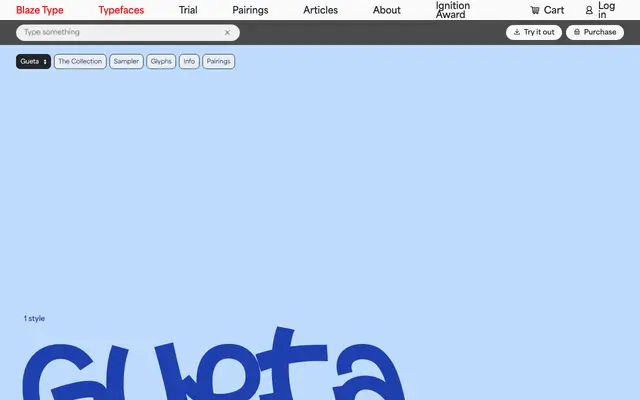
Gueta
A backslant display face by Malo Haffreingue that draws on graffiti tag culture, built around an unusually rich set of 293 ligatures connecting up to five letters at once.
Designed by Malo Haffreingue and released in 2023, Gueta takes its visual cues from the spontaneity and flow of tagged writing, rendered as a formal display typeface with a backward slant. The 293-ligature system is its defining technical feature, allowing letter sequences to flow together with a momentum rarely found in a single-weight release. Best suited to posters, headlines and graphic applications where the connected, kinetic letterforms can read at scale.
Gueta is a display typeface with a backward-slanting (backslant) structure rooted in urban writing and graffiti tag aesthetics, placing it firmly in the display category with a distinct street vernacular subcategory.